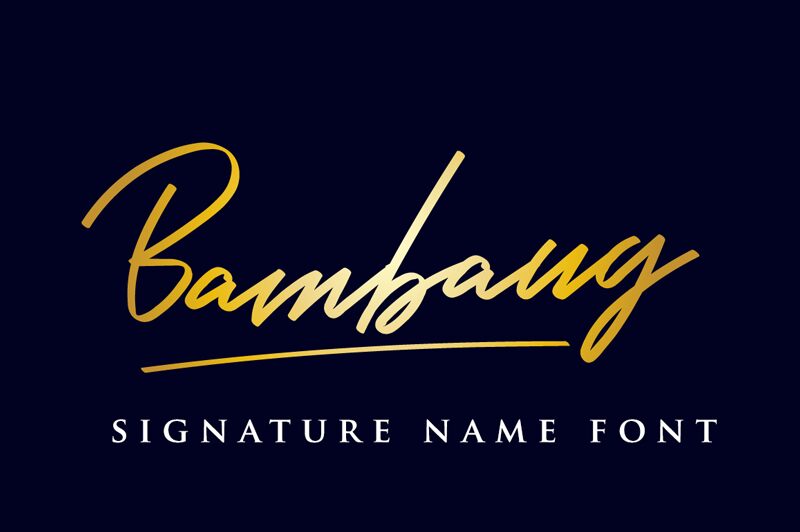
Bambang
Bambang, a captivating handwritten signature font designed by Dimas Prasetyo at Dm Letter Studio. With its semi-light weight, Bambang exudes a sense of elegance and sophistication. Its flowing strokes and unique charm make it perfect for branding projects, personal logos, wedding invitations, and social media graphics. Bambang adds an authentic touch to any design, whether it's a luxury fashion label or a cozy coffee shop. Infuse your projects with the beauty of handcrafted calligraphy and let Bambang leave an unforgettable impression on your audience.